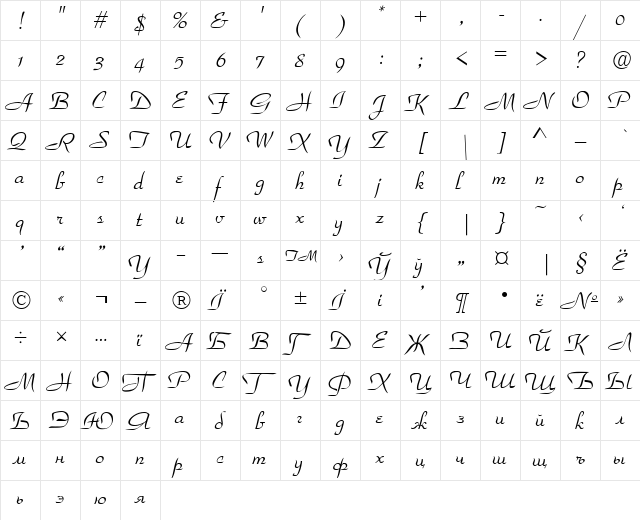
Torhok Italic
Design Context for Torhok Typeface
Torhok takes a measured approach to typography — its balanced proportions and neutral character make it a reliable workhorse for both digital and print work. The dynamic lean of this cut emphasises speed and emphasis in any layout.